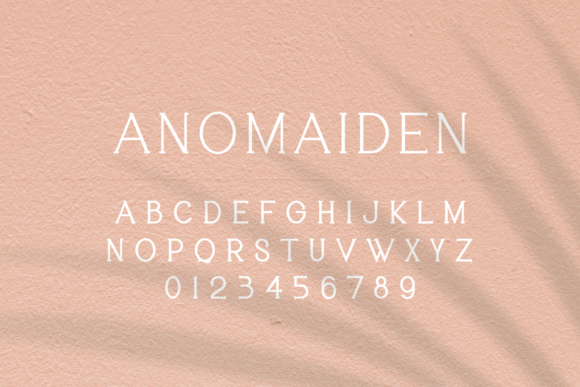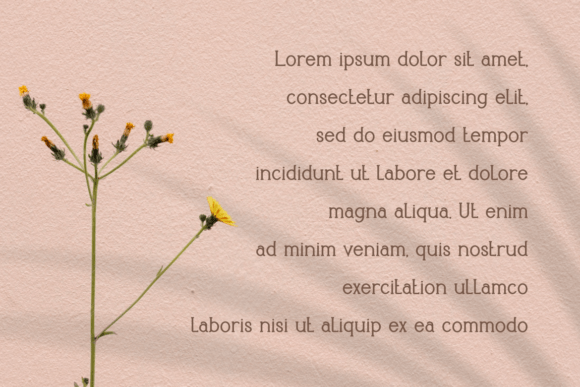
The Designer’s Delight: Anomaiden Font
Have you ever been in the middle of a design project, and suddenly, you’re stuck on finding the perfect font? I recall a recent experience where I was working on a client’s branding project, and I just couldn’t seem to find a font that fit their elegant and sophisticated vibe. That’s when I stumbled upon the Anomaiden Font. **It’s been a game-changer** for my design work, and I’m excited to share my love for it with you! 😊
An Honest Review of Anomaiden Font
- ✨ Stylish and Thin-Letered Serif: Anomaiden boasts a sleek, modern design that adds a touch of sophistication to any project.
- ✅ Versatile: This font is perfect for a wide range of design projects, from branding and advertising to packaging and digital media.
- 💡 Ease of Use: Anomaiden is incredibly easy to read, even at small font sizes, making it ideal for body text and captions.
While Anomaiden is an excellent font, there are a few minor quirks to be aware of:
- 🤔 Limited Availability of Stylistic Alternates: Although Anomaiden has some beautiful stylistic alternates, the selection is limited compared to other fonts.
- ⚠️ Not Suitable for All Languages: As with many fonts, Anomaiden may not support all languages or special characters.
The Backstory of Anomaiden Font
Anomaiden was designed with the intention of creating a **stylish and versatile font** that could be used in a wide range of design projects. The designer aimed to craft a font that would be both elegant and easy to read, making it perfect for designers, crafters, and creative hobbyists.
| Font Name | Anomaiden Font |
| Author | lelevien |
Q: What is the Anomaiden font style?
A: Anomaiden is a stylish, thin-lettered serif font.
Q: Is Anomaiden suitable for body text?
A: Yes, Anomaiden is easy to read, even at small font sizes, making it suitable for body text.
Q: Does Anomaiden support OpenType features?
A: Yes, Anomaiden supports OpenType features, including ligatures and stylistic alternates.